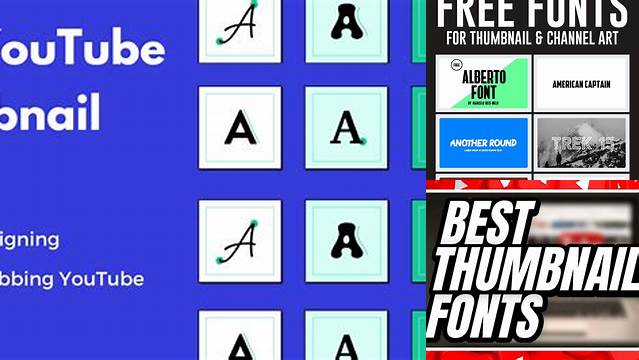
Awesome Fonts For YouTube Thumbnails: Grab Attention!
Hey guys! Ever wonder what makes a YouTube thumbnail pop and grab those precious clicks? Well, a killer font is a HUGE part of the secret sauce! Choosing the best fonts for YouTube thumbnails can seriously boost your click-through rate (CTR) and get your videos seen. I'm talking about fonts that are easy to read, visually appealing, and perfectly convey the vibe of your content. Let's dive in and explore some awesome font options that'll make your thumbnails stand out from the crowd. This guide is all about helping you find the perfect typography for your videos, so get ready to level up your thumbnail game! We'll cover everything from classic choices to trendy styles, ensuring your thumbnails are not just seen, but clicked! So, whether you're a seasoned YouTuber or just starting out, get ready to learn all about the power of fonts in attracting viewers and making your content shine. Let's get started, shall we?
Choosing the Right Font for Your YouTube Thumbnails: Key Considerations
Alright, before we jump into specific font recommendations, let's talk about the fundamentals of picking the perfect font for your YouTube thumbnails. Choosing the best fonts for YouTube thumbnails isn't just about picking something that looks pretty; it's about functionality and communicating your video's essence at a glance. Consider these crucial factors before making your decision. First and foremost, readability is king. Your font needs to be crystal clear, even at a small size on different devices. This means avoiding overly ornate or stylized fonts that might get lost or muddled. Think about your audience and the message you want to convey. Is your video funny, serious, educational, or something else entirely? The font should align with your video's tone and style. A playful, bubbly font might be great for a kids' video, but not so much for a documentary on a serious topic. Consider the overall aesthetic of your channel and brand. Do you have a consistent style guide? Sticking to a consistent font (or a small family of fonts) helps reinforce your brand identity and makes your content instantly recognizable. Consider the contrast between your font and the background of your thumbnail. A light font on a light background or a dark font on a dark background will be illegible. Always choose a font that provides enough contrast to stand out. Lastly, test, test, and test! Preview your thumbnails on different devices and screen sizes to make sure your chosen font remains readable. The goal is to make your thumbnails as instantly understandable as possible. With these factors in mind, you will be well on your way to finding the best fonts for YouTube thumbnails that will transform your click-through rates.
Font Readability and Its Impact on Click-Through Rates
Let's get real, guys! Readability is not just a fancy word; it's the foundation of a successful YouTube thumbnail. The best fonts for YouTube thumbnails must be easily readable at a glance, regardless of screen size or device. This is because your thumbnail is often the first impression you make on potential viewers. If the font is hard to read, people will scroll right past your video. The impact on your click-through rate (CTR) is huge! A higher CTR means more views, more subscribers, and more success on YouTube. Font choice directly influences whether someone takes that crucial click. Think about it: if the text is blurry or difficult to decipher, viewers won't bother. Instead, they'll move on to a thumbnail that instantly communicates its message. Avoid overly complex or decorative fonts. These might look cool in a designer's portfolio, but they're a disaster for thumbnails. They often lack clarity when scaled down. Opt for clean, simple fonts with clear letterforms. Sans-serif fonts (like Arial, Open Sans, or Montserrat) are generally a safe bet because they're known for their clarity. Make sure there is enough contrast between your text and the background. White text on a dark background, or black text on a light background is generally very effective. Your goal is to make the text as clear and easy to understand as possible, so the viewer can easily see what your video is about, thus increasing the chance they will click to view the video. Test on mobile devices! Most YouTube views happen on phones, so your thumbnail needs to look great on a smaller screen. Preview your thumbnails on a variety of devices to ensure readability. So keep it readable!
Matching Font Styles to Your Video Content: The Perfect Match
Finding the best fonts for YouTube thumbnails involves more than just picking a font that looks nice. You need to match the font style to your video's content and target audience. A font that aligns with the tone of your video helps communicate its message and attract the right viewers. If you're creating a gaming video, a bold, modern font could be a great choice. If it's a cooking tutorial, a friendly, slightly rounded font might be better. Consider the feeling you want to create. Is your video humorous, serious, educational, or something else entirely? Choose a font that reflects that mood. If you're making a video about finance, you might opt for a clean, professional-looking font like Roboto or Lato. On the other hand, a video about DIY crafts might benefit from a more playful font like Bebas Neue. Think about your target audience. What kind of fonts do they find appealing? If you're targeting a younger audience, consider a more modern, dynamic font. If you're targeting professionals, stick with something clean and polished. Consistency is key. If you have an established brand, stick to fonts that are consistent with your overall style guide. This helps create brand recognition and makes your videos instantly recognizable. Pairing fonts wisely is also important. Avoid using too many different fonts in a single thumbnail; this can be distracting. Instead, choose a primary font for your main headline and a secondary font for any supporting text. By carefully matching font styles to your video content, you can create thumbnails that are not only visually appealing but also effectively communicate the message of your video and resonate with your target audience. Selecting the best fonts for YouTube thumbnails will greatly improve the chance of increasing your click through rates.
Top Font Choices for Eye-Catching YouTube Thumbnails
Alright, let's get to the good stuff – the font recommendations! Choosing the best fonts for YouTube thumbnails is critical for grabbing attention and conveying your message effectively. Here are some of the top font choices that have proven to be effective in various niches.
Sans-Serif Fonts: The Clean and Modern Classic
Sans-serif fonts are the workhorses of YouTube thumbnails. Their clean, uncluttered designs make them incredibly readable, even at small sizes. If you’re looking for the best fonts for YouTube thumbnails, these are an excellent place to start. Arial is a classic choice, offering solid readability and a familiar look. It's a safe bet and a good starting point. Roboto is a modern favorite, known for its clean lines and versatility. It's a great choice for almost any type of video content. Open Sans is another popular option, praised for its openness and legibility. It works well in various contexts. Montserrat is a stylish sans-serif that adds a touch of modern flair, making it ideal for those who want something a little more distinctive. Consider the font weight. Using a bold or extra-bold weight for your main headline ensures maximum impact. Choose the right font weight based on the size and background of your thumbnail. While these are safe and common choices, they may also be very common, so you may also want to consider some of the fonts below to help your thumbnails stand out.
Serif Fonts: Adding a Touch of Elegance and Authority
Serif fonts, while sometimes less common, can be incredibly effective in the right context. If you are looking for the best fonts for YouTube thumbnails while adding a touch of elegance or authority, then serif fonts may be right for you. Playfair Display is a great choice for adding a touch of class. It's a high-contrast serif that works well in headlines. Lora provides a more modern take on the serif style. It is very readable, making it great for more traditional content. Bitter is designed for readability on screens, meaning it works great on thumbnails. Serif fonts bring a sense of sophistication that can be effective for certain niches. Consider using serif fonts for content related to finance, education, or topics where you want to project authority. Don't overdo it. Serif fonts can be trickier to read than sans-serif fonts. They need to be used carefully, in a size and weight that ensures readability. For those looking for the best fonts for YouTube thumbnails, then selecting the right serif font should be a serious consideration.
Bold and Impactful Fonts: Making a Statement
Sometimes you need a font that screams for attention, and that's where bold and impactful fonts come in. These fonts are designed to grab attention and make a strong visual statement. The best fonts for YouTube thumbnails that fall in this category are often used for headlines and key messaging, but can be risky if used incorrectly. Bebas Neue is an extremely popular choice because of its bold, condensed style. It's perfect for creating a high-impact headline. Anton is another great choice, with a similar bold look. It's great if you want a font that commands attention. Impact is the quintessential bold font. It's perfect for thumbnails that need to scream for attention, though it should be used sparingly. Oswald is a condensed font that offers a bold and modern feel. It's another solid option for headlines. While these fonts are great for headlines, use them strategically. Too much bold font can make your thumbnail look cluttered. Use bold fonts to emphasize key messages, but pair them with a more readable font for supporting text. Consider contrast and spacing. These fonts can easily get lost if there isn't enough contrast or if the text is too close together. If you choose to use the best fonts for YouTube thumbnails that are bold and impactful, be sure to consider these factors.
Font Pairing: Creating Visual Harmony in Your Thumbnails
Choosing the best fonts for YouTube thumbnails is not always just about finding one perfect font; it's often about skillfully pairing fonts to create visual harmony. Font pairing is the art of combining different fonts to create a balanced and aesthetically pleasing design. Successful font pairings enhance readability, create visual interest, and reinforce your video's branding. Let's explore the art of font pairing to make your thumbnails more appealing. Pairing a bold headline font with a clean and readable body font is a classic approach. This approach ensures that your headline grabs attention while the rest of the text remains easy to read. For example, you could use Bebas Neue (bold headline) with Open Sans (body). Contrast fonts in terms of style, size, and weight. You can achieve contrast by using a bold headline font and a lighter font for supporting text. Or, you can combine a sans-serif font with a serif font. Make sure that the fonts complement each other, not compete. Too many fonts can make your thumbnail look cluttered and confusing. Limit yourself to two or three fonts at most. Test your pairings! Preview your font pairings on your thumbnails to ensure they work well together, especially on various devices and screen sizes. Ensure your fonts match the mood and style of your content. Fonts should reflect the overall tone of your video. With careful font pairing, you can elevate the visual appeal of your thumbnails and draw viewers in. Mastering the art of font pairing is a skill in itself, and those searching for the best fonts for YouTube thumbnails should take the time to learn this skill.
Best Practices for Pairing Fonts in Thumbnails
When selecting the best fonts for YouTube thumbnails, pairing fonts is an art form that can significantly impact the effectiveness of your thumbnails. To create visually appealing thumbnails, you need to follow some best practices when pairing fonts. Choose one dominant font for your headline and one or two secondary fonts for the rest of your text. The dominant font should be bold and eye-catching to grab viewers' attention, while the secondary fonts should be readable and complement the headline. Create a strong contrast between your headline and body text. This could be achieved with different font weights or styles. For example, you could use a bold sans-serif font for the headline and a lighter sans-serif for your body text. Ensure that all fonts are readable at small sizes. Test your thumbnail on various devices to ensure readability. Remember to maintain consistency in your font usage. If you establish a font pairing that works well for your channel, stick with it to strengthen your brand identity. Lastly, consider the relationship between your fonts. Make sure the fonts complement each other instead of competing. This approach, along with many others, is an important consideration in finding the best fonts for YouTube thumbnails.
Conclusion: Level Up Your YouTube Thumbnails with the Right Fonts
So there you have it, guys! Choosing the best fonts for YouTube thumbnails is an essential element of success. We've covered everything from font selection and pairing to best practices and advanced tips. Remember, the goal is to create thumbnails that are visually appealing, easy to read, and accurately represent your video content. Experiment with different fonts, practice and iterate based on your video's performance. Keep testing, keep learning, and your thumbnails will be looking amazing in no time! Good luck, and happy designing!